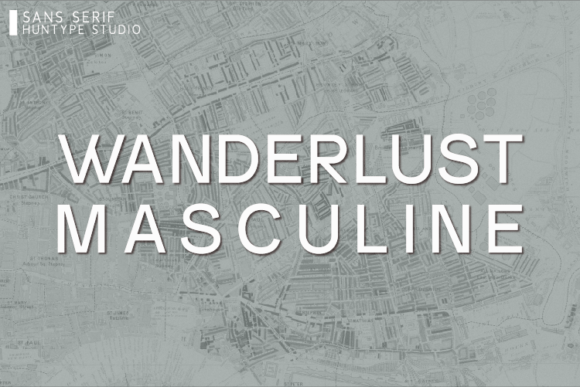
Welcome to the realm of elegance, where Wanderlust Masculine Font reigns supreme, a captivating sans serif typeface crafted by Huntype, specifically tailored to add a touch of sophistication to your wedding labels. This modern and classy font, exudes an aura of charm that will elevate your wedding invitations to new heights of allure. Wanderlust Masculine Font is more than just a font; it's an artistic expression of love and commitment, designed to make your special day truly unforgettable.
Imagine the joy of your guests as they receive their wedding invitations adorned with Wanderlust Masculine Font. Its clean lines and elegant curves will create a sense of timeless romance, leaving a lasting impression on everyone who beholds it. The font's versatile nature allows you to effortlessly express your personal style, whether it's classic, contemporary, or bohemian.
With Wanderlust Masculine Font, you can effortlessly convey the depth of your love and commitment. Its flowing characters will gracefully guide your guests to the most important celebration of your life. The font's timeless beauty will add a touch of magic to your special day, making it a truly unforgettable experience.
Wanderlust Masculine Font is not just a font; it's an investment in love, a visual representation of the bond you share with your loved ones. Its versatility extends beyond wedding labels, making it perfect for save-the-dates, programs, menus, and any other printed or digital material related to your wedding.
So why settle for ordinary when you can embrace the extraordinary? Choose Wanderlust Masculine Font to add a touch of elegance and charm to your wedding labels and other wedding-related materials. Its timeless beauty and versatile nature will ensure that your special day is celebrated in style.